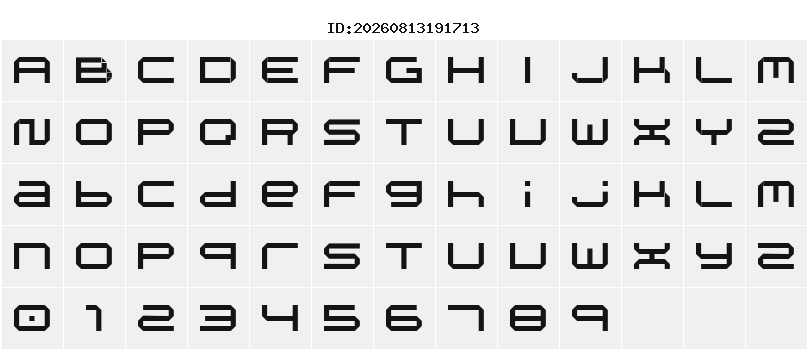
About spd06.ttf
spd06.ttf is a modern, elegant sans-serif font designed for ultimate readability and visual harmony. Perfect for branding, headlines, web design, and print materials.